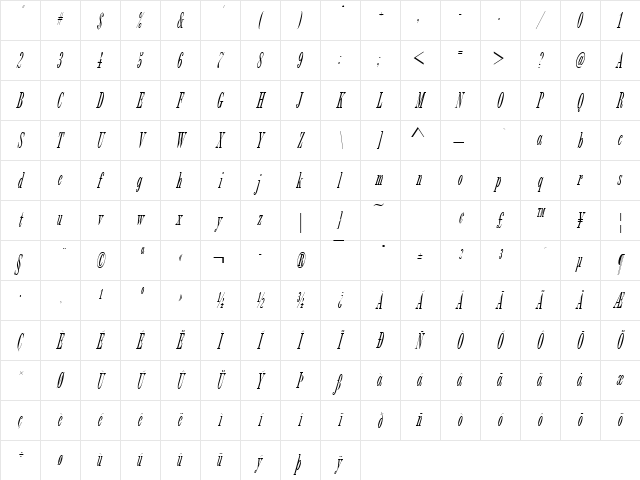
URWBordaDReg Italic
Design Context for URWBordaDReg
URWBordaDReg is a composed and adaptable typeface that performs quietly and consistently across a wide range of design contexts. The slanted form adds forward momentum and visual energy.
Pro Tip: Use URWBordaDReg for emphasis, pull quotes, and subheadings where its slanted energy can add rhythm to the layout.